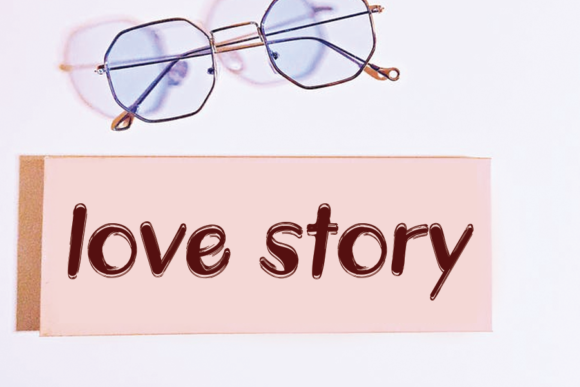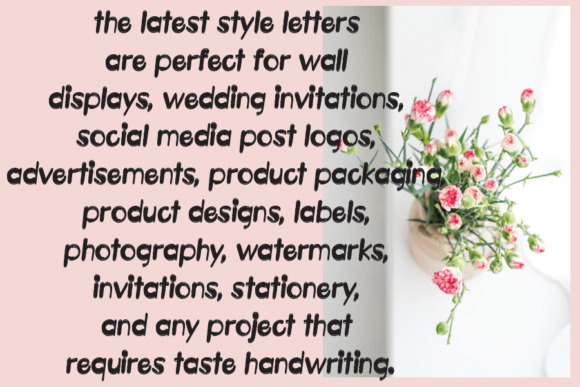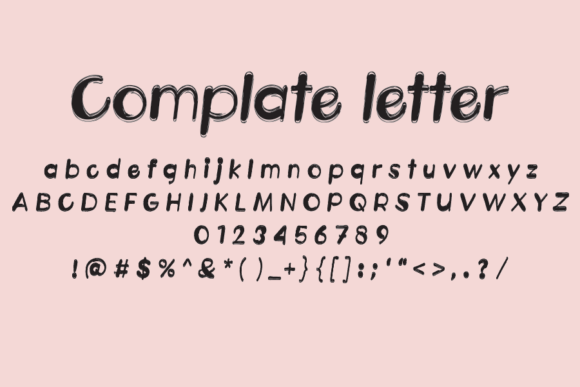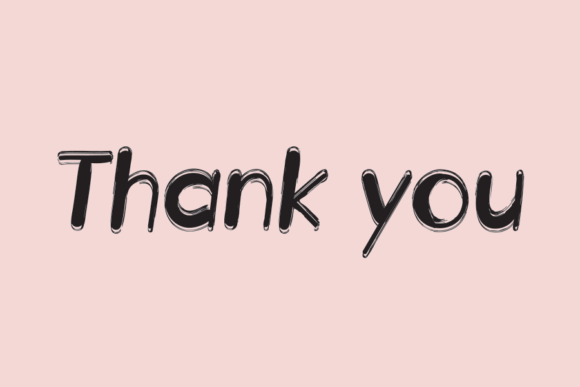
Have you ever been brainstorming a new idea and suddenly, it clicks? The words start flowing, and the concept begins to take shape. That’s exactly what happens when you discover the right font to match your vision. For many designers, this moment is a game-changer, and it’s what makes the creative process so rewarding.
That’s where the Boom Book Font comes in – a casual and unique handwritten font that’s perfect for logos, branding, social media, and crafty DIY projects. With its clean and quirky feel, this font is a valuable addition to any designer’s toolkit. Whether you’re working on a personal project or a client’s branding, the Boom Book Font is sure to bring a touch of personality and whimsy to your design.
Boom Book Font Key Features
- Unique Characteristics: Boom Book Font features a unique, energetic design with bold and playful letterforms, making it ideal for creative and attention-grabbing applications.
- Font Weight and Style: Boom Book Font comes in a range of font weights, from Light to Extra Bold, and includes various stylistic sets for added versatility.
Boom Book Font Review
First off, I was immediately drawn to the playful, energetic vibe of the Boom Book Font. It’s perfect for anything that needs a fun, youthful feel. ✨ The font’s bold lines and rounded edges create a friendly, approachable atmosphere that’s hard to resist. ✨
However, there are a few limitations to consider. ⚠️ The font can feel a bit overused if you’re not careful, and it may not be the best choice for more serious or formal projects. Additionally, the font’s lack of subtlety can make it difficult to use in conjunction with other bold or eye-catching elements. ⚠️
Overall, I think the Boom Book Font is a great addition to any designer’s toolkit, but it’s essential to use it thoughtfully and in the right context. With a little creativity and restraint, it can add a lot of personality to your designs.
Pros:
- Perfect for playful, youthful designs
- Bold lines and rounded edges create a friendly atmosphere
- Easy to read and recognize
Cons:
- Can feel overused if not used carefully
- May not be suitable for more serious or formal projects
- Lack of subtlety can make it difficult to pair with other bold elements
Boom Book Font is a versatile font that can be used for a variety of purposes, including:
- Book covers and publishing materials
- Wedding invitations and event materials
For optimal results, use Boom Book Font in conjunction with a bold or italic font to create visual interest and contrast.